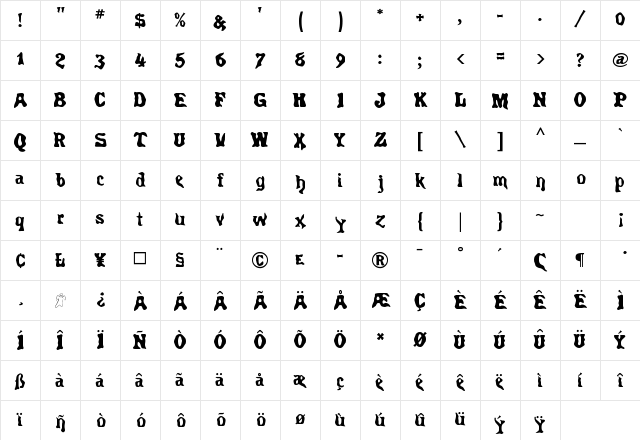
Spirits Regular Free Font
Spirits Regular
Design Context for Spirits
Spirits is a composed and adaptable typeface that performs quietly and consistently across a wide range of design contexts.